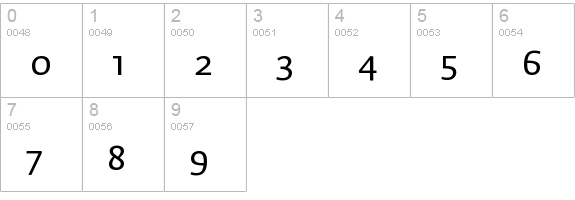
Auto 3 Regular Font Details
Auto 3 Regular is the standard, neutral variant in the Auto typeface family \xE2\x80\x94 well suited to general body text, paragraphs, and standard typographic work.
Auto 3 Regular font is a sleek and modern typeface that exudes professionalism and sophistication. Its clean lines and sharp edges make it perfect for a wide range of design projects, from branding to editorial layouts. This versatile font is easy to read and will make your text stand out with its contemporary style. What's even better is that Auto 3 Regular font is completely free to download at FontsMarket.com. You can add this elegant typeface to your collection without any cost, making it a valuable resource for all your design needs. Don't miss out on this opportunity to enhance your projects with the stylish Auto 3 Regular font, available for free download now at FontsMarket.com.